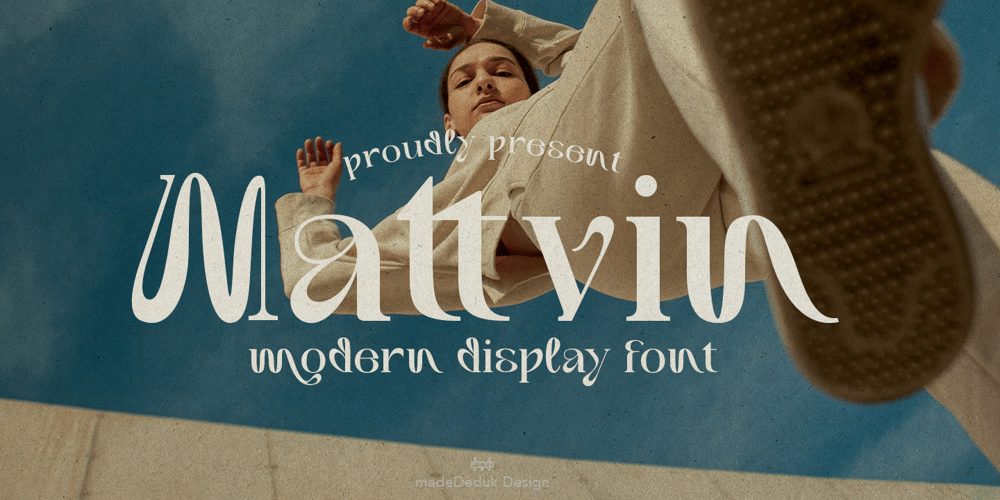
Mattvin Font Family was designed by madededuk and published by madeDeduk. Mattvin contains 1 styles and family package options. Mattvin is a display serif, simplistic, high-contrast sans that is at home in high-end fashion and cultural environments you can explore and combine. use this font for any branding, product packaging, invitation, quotes, t-shirt, label, poster, logo etc.